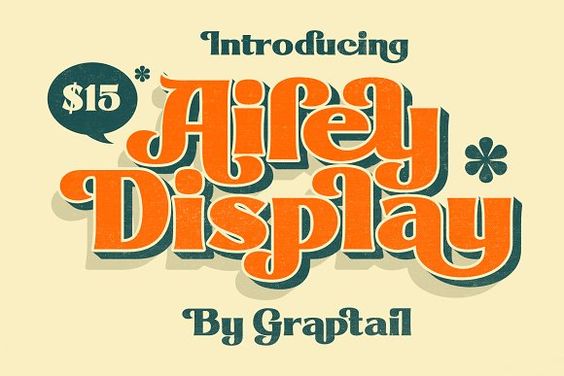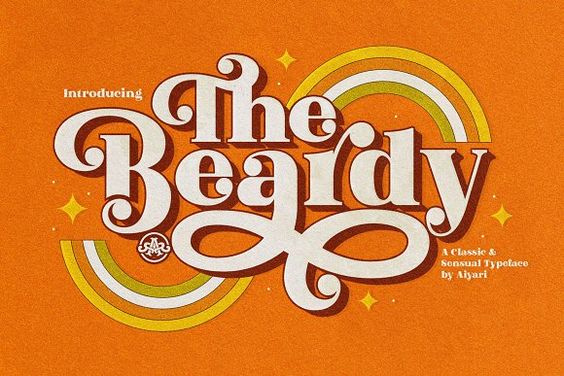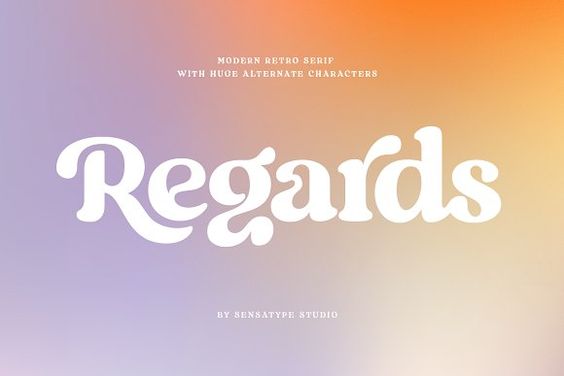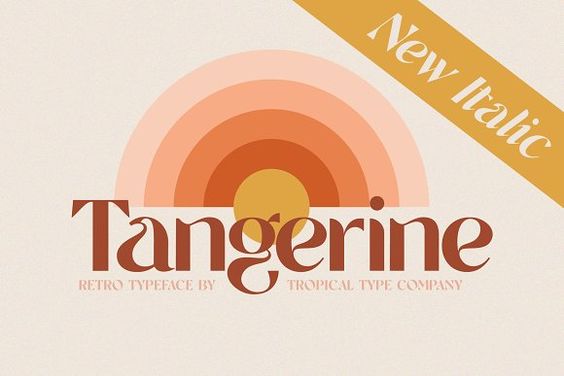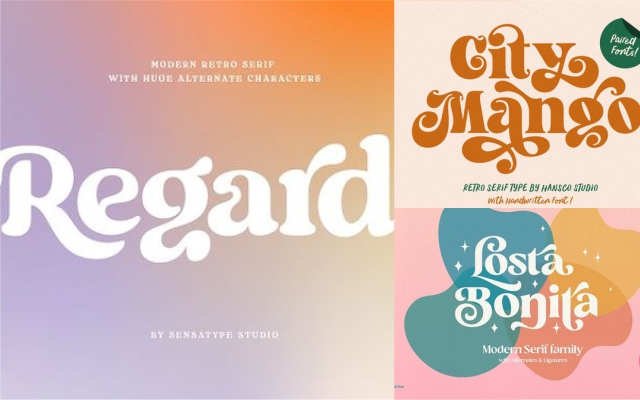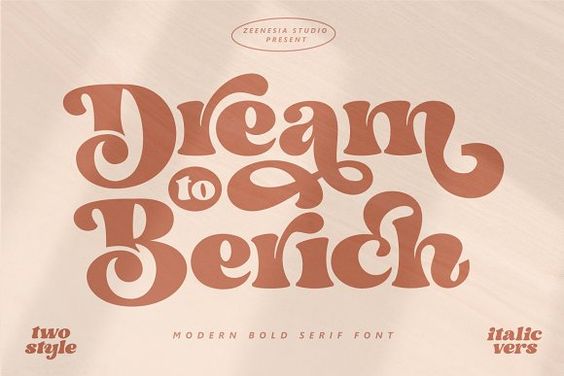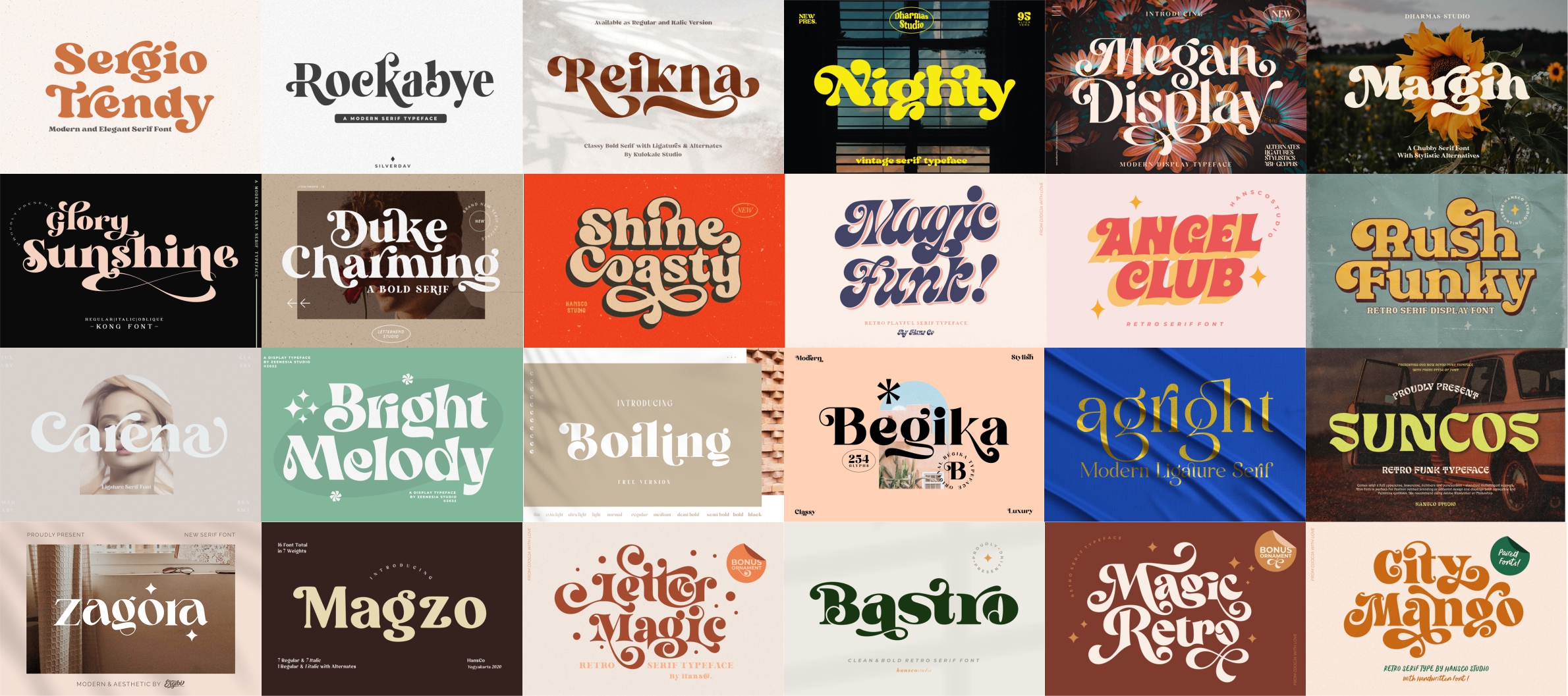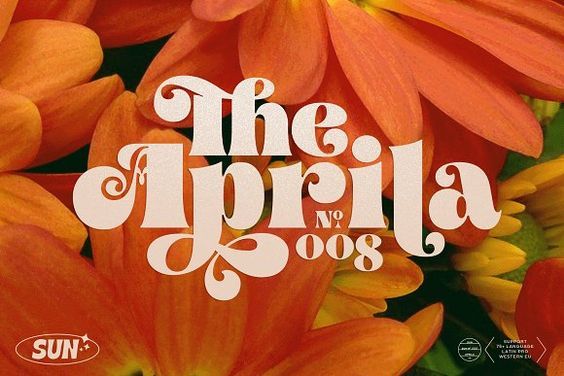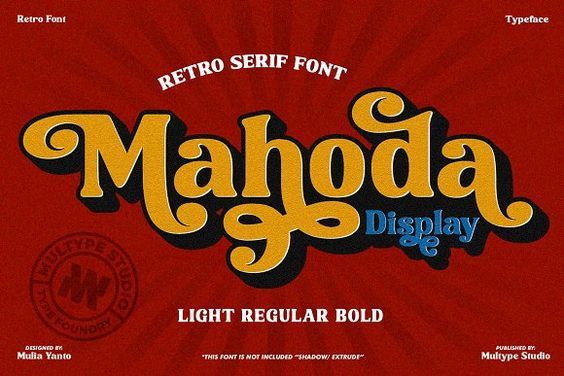
7 Ways to Design with Retro Serif Font (with Font Recommendations)
Nostalgic designs are making their way to the current era with contemporary twists. Retro serif fonts offer groove and old-school charms in modern design projects. Combining fun and quirkiness with subtle vintage elegance, these fonts open many possibilities in your design projects.
Looking for ideas to try in your next projects? Follow these seven design inspirations you can execute with retro serif, complete with recommended fonts.
1. Cricut Crafts (Home and Commercial)
The revolutionary Cricut cutting machines have opened the doors for amateur and professional crafters to create amazing projects. You can use retro fonts Cricut for various types of crafts, either as embellishments or the major parts of the designs.
Retro fonts offer endless artistic possibilities in your Cricut projects. You can make custom journal covers with embossed initials, monogram jewelry, t-shirt designs, stickers, creative greeting cards, and many more.
Recommended Fonts
• The Aprila
1 The Aprilia
The aprila offers a classy, elegant touch for greeting cards, journal covers, and monogrammed handmade jewelry. Its distinctive form creates fantastic shapes when used in a Cricut machine.
• Bastro
2 Bastro
Bastro has a distinguished slab style, with variations in glyphs and ligatures that you can use in any Cricut crafts.
• Angel Club
3 Angel Club
Angel Club is bold and groovy, with pointed edges and curled ends that create a unique style. Another distinguished retro serif font for home and professional projects.
2. Retro Ad Illustrations
Why stop at the vintage fonts if you can use the artistic style, too? The artistic styles of retro advertisements have come back in modern design trends. You can use retro-inspired fonts to recreate this style in your design projects.
Retro ads have unique visual charms that make them popular among modern designers. They often have creative combinations of colors and graphics, either simple or explosive and colorful. The fonts are usually stylized and visually notable, with distinctive designs complementing the ad’s bold imagery.
Retro serif fonts are great for recreating vintage ads in your modern designs. Nowadays, you can find retro fonts with subtle modern influences, making it easier to bridge the visual gaps between the vintage and the contemporary.
Recommended Fonts
• Magic Funk
4 Magicfunk
Magic Funk is great to add some Funky Era-inspired touch to your retro designs. Its curled ends and bold strokes give great visual elements to any project.
• Daisy
5 Daisy
Daisy gives a fresh, beautiful touch to your retro ad-inspired designs. Its flowery glyphs are perfect for “vintage classy” design styles.
• The Vindest
6 Trhe Vindest
The Vindest adds a vibrant touch of the 80s to your ad-inspired designs. Use its unique ligatures and glyphs to add a zest to your designs.
3. Psychedelic Designs
Forget minimalism and everything muted; today’s design trends embrace the psychedelic. This design combines bold, clashing colors with wild, spiraling patterns. It also includes kaleidoscopic imagery and distortions of shapes and lines.
Fonts in the 70s are perfect for embracing psychedelic designs. Many are bold, bubbly, and even have exaggerated swashes and curls. This combination will create strong impressions, regardless of the design, material, and medium.
You can apply psychedelic designs to anything; the only limit is your imagination. From printed merchandise to brand identities and home crafts, the explosion of colors and shapes will make any design more interesting.
Recommended Fonts
• Magic Retro
8 Magicretro
Magic Retro has a whimsical touch that is ideal for psychedelic designs. The stylish retro serif font has glyphs with ribbon-like swashes, adding magical charm to the texts.
• Dream to Berich
7 Dream
Dream to Berich has a groovy look thanks to its bold, unique look. Its swashes and glyphs have exaggerated curls and loops, perfect for psychedelic designs.
• Radnick
9 Radik
Radnick offers a stylish 70’s vibe from its bold, slightly irregular forms. Any psychedelic design ideas you have are boosted with exaggerated loopy swashes.
4. Mixing 2D and 3D
Mixing the 2D with 3D is a design idea that only gets boosted with every new trend. Styles like this creates excitement from new depths, contrasts, and combinations. There are no limits in choosing the style of the design elements as long as they complement each other and describe your ideas well.
For example, you can combine 3D fonts unique with 2D images or place a sole object in the middle of a 2D environment. You can add different styles and effects, like pen scribbles or paper collages. Adding beautiful retro fonts can make the designs more interesting.